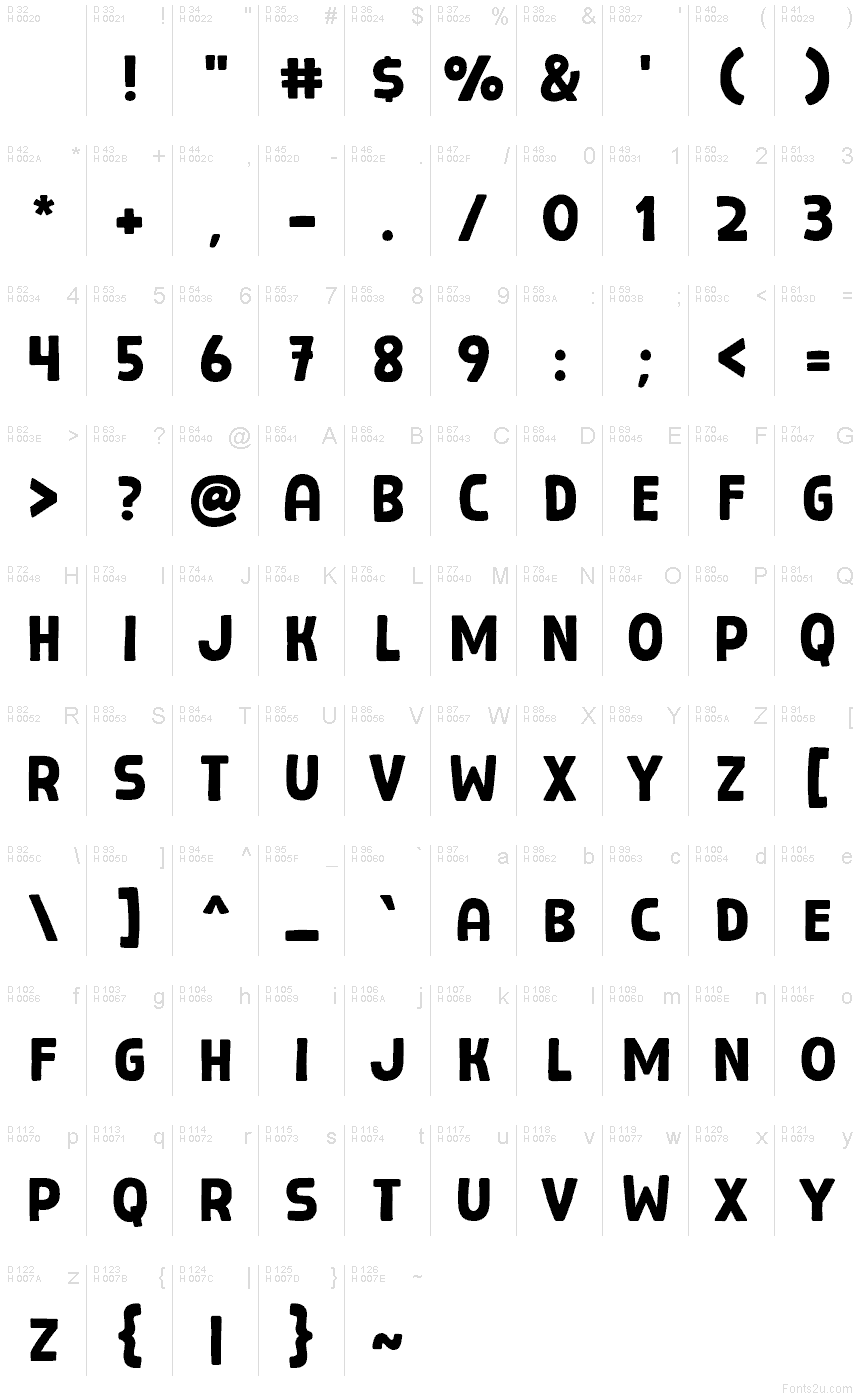
Anak Paud
Anak Paud font is a playful cartoon display font by Khurasan. With its bold, rounded forms and retro influence, this font boasts a thick structure and geometric shapes. Its casual aesthetic offers a friendly and approachable feel for any project.